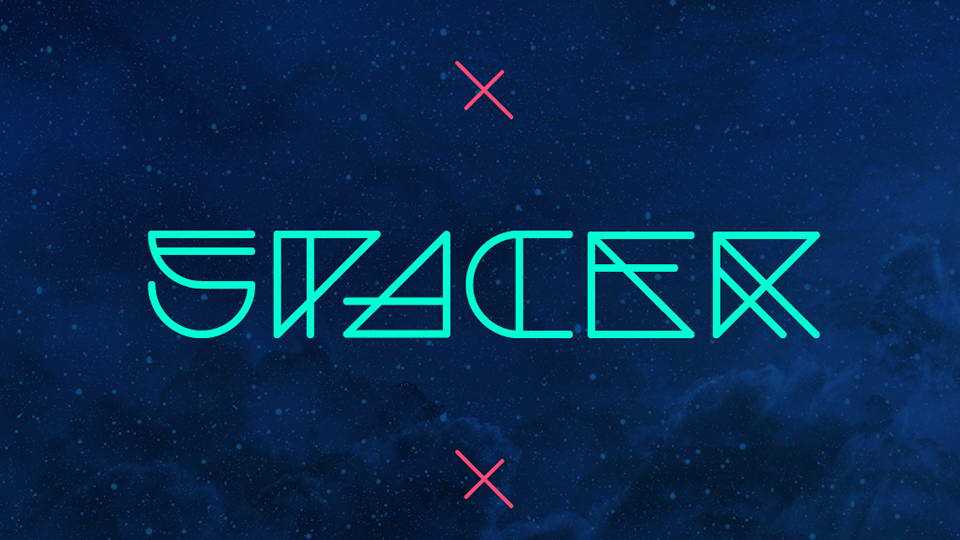
Download Spacer, a ceative futuristic display font with unique forms. Perfect for sci-fi projects, futuristic designs, also looks great for logos and posters, branding and other artworks.
Designer: Mariano Diez